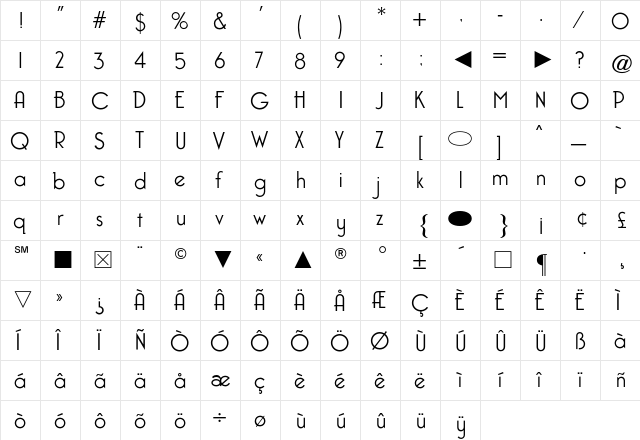
Cg Capone Light Regular
| Foundry | Agfa Corporation |
Design Context for Cg Capone Light Typeface
Cg Capone Light is a composed and adaptable typeface that performs quietly and consistently across a wide range of design contexts. The delicate stroke weight brings airiness and refinement to layouts.